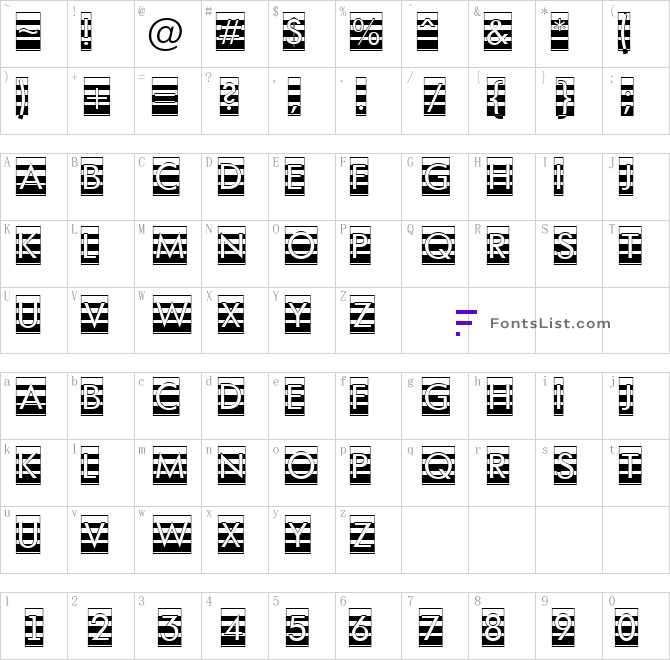
a_FuturaOrtoTitulCmGrd.ttf is a very beautiful artistic font, a_FuturaOrtoTitulCmGrd.ttf is widely used in the design and printing of various books and pictures,a_FuturaOrtoTitulCmGrd.ttf has a strong visual impact,a_FuturaOrtoTitulCmGrd.ttf is a commonly used font in newspapers, magazines and books, and is used in posters, e-commerce Poster design, store design, logo design, font design and other fields.a_FuturaOrtoTitulCmGrd.